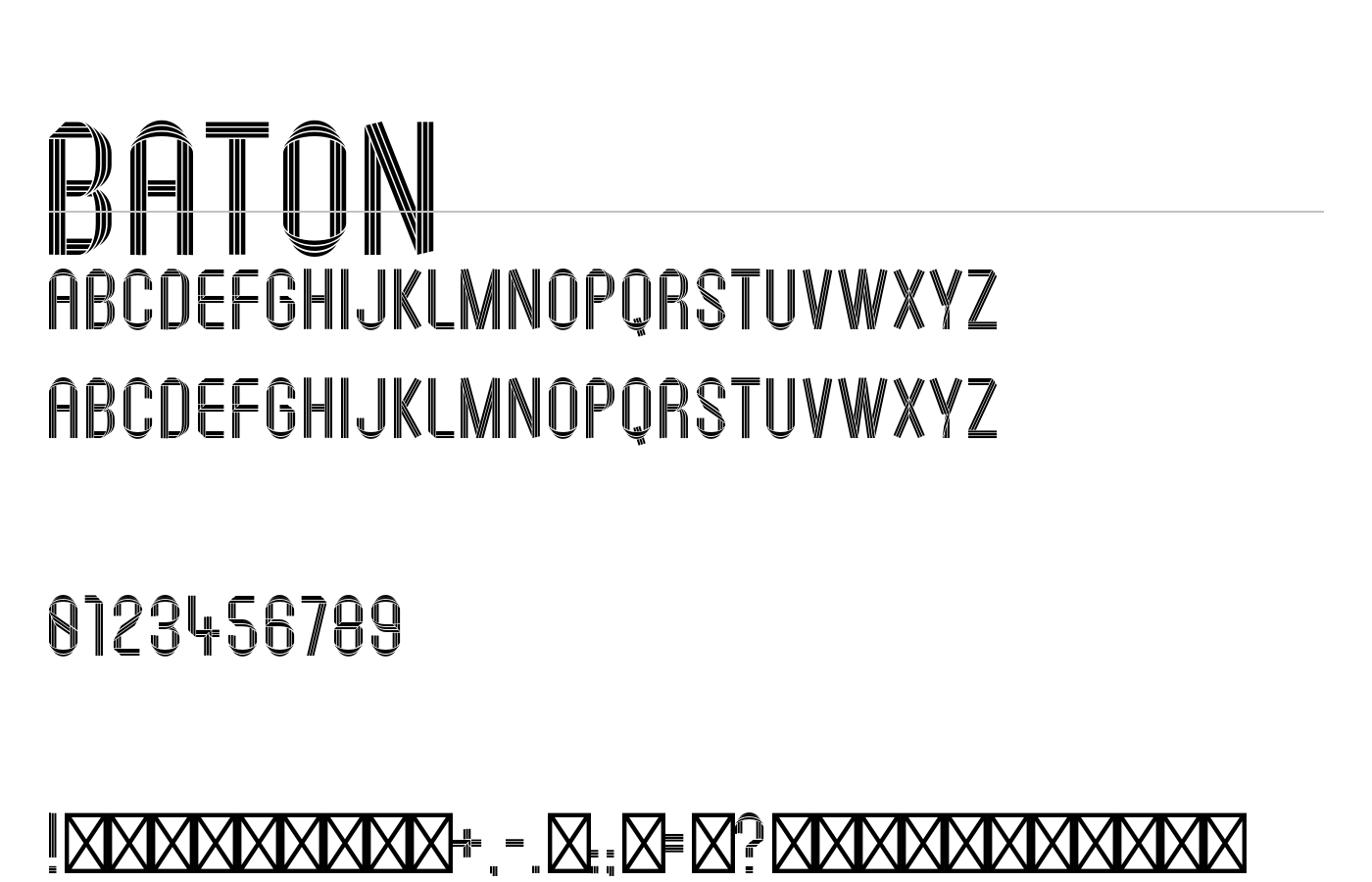
Baton is a distinctive, narrow sans serif font characterized by its unique decorative stripes running vertically through each letterform, giving it a modern and artistic vibe. Its tall, condensed shapes combined with medium contrast and clean geometric stroke details make it an eye-catching choice for headlines, logos, and creative branding that seeks to stand out with a stylish and sophisticated edge. This font works best in display settings where its intricate pattern can shine and add a bold visual impact.
Baton Font
About Baton Font
| Font family | Baton Font |
| Designer | Stephen Flagg |